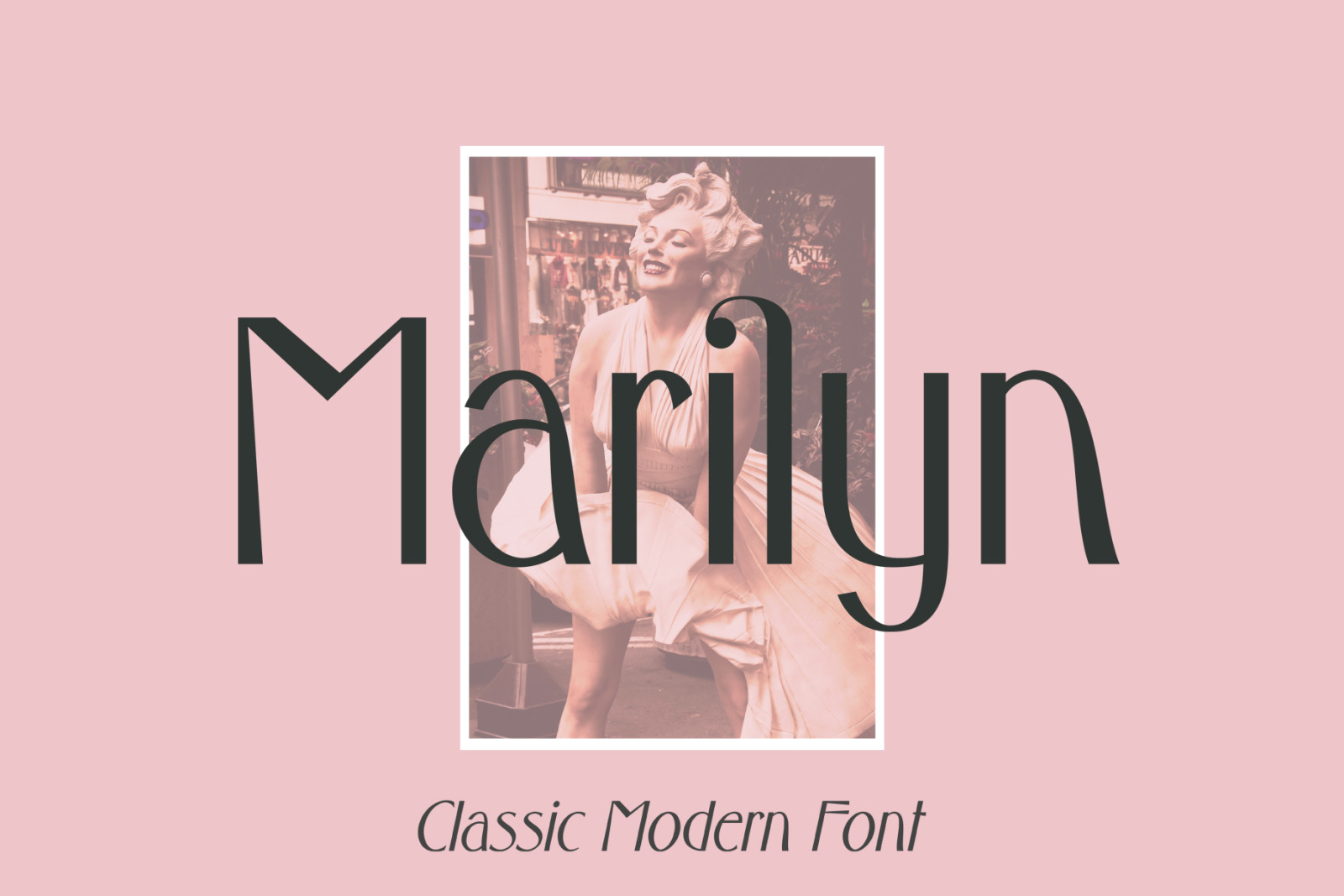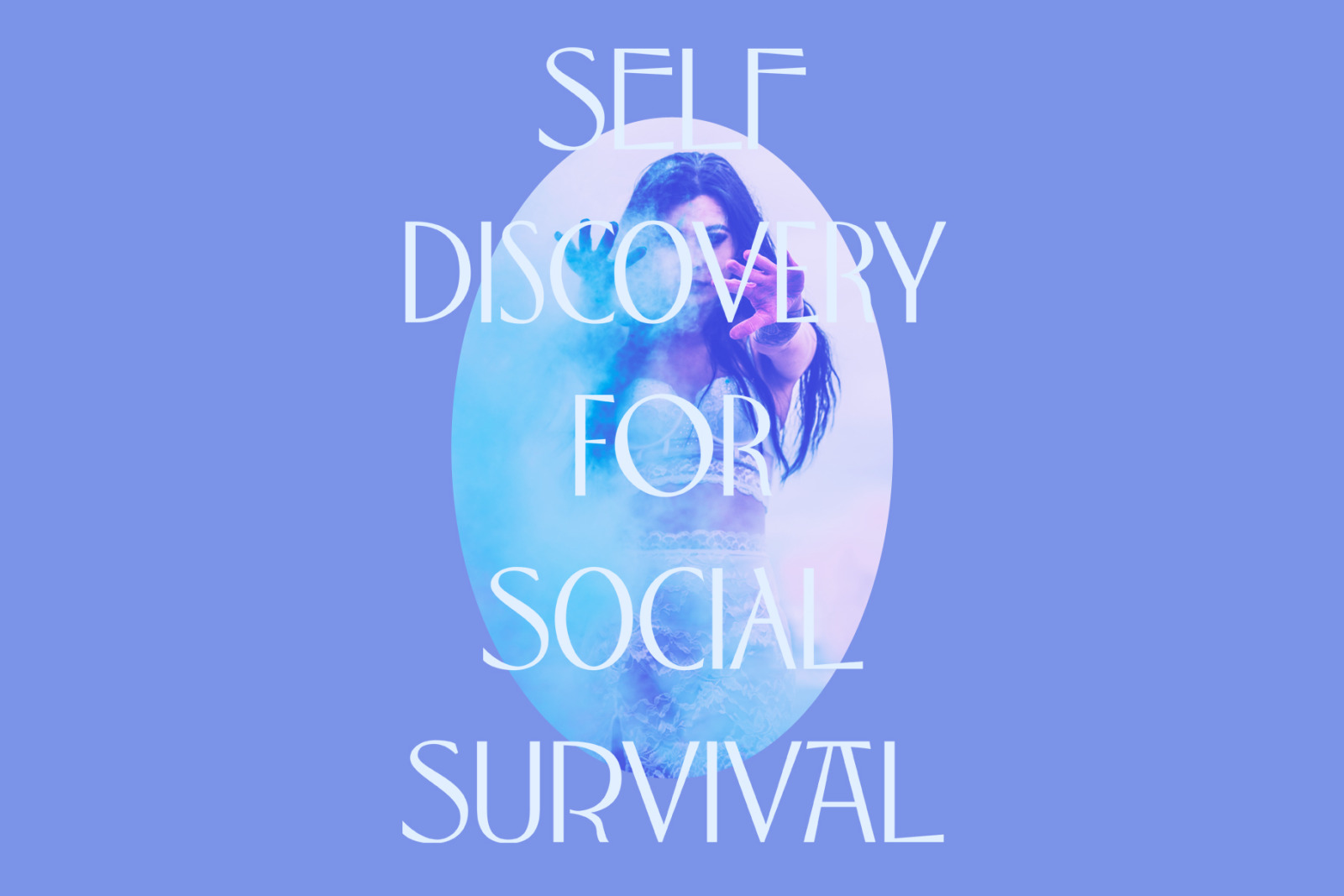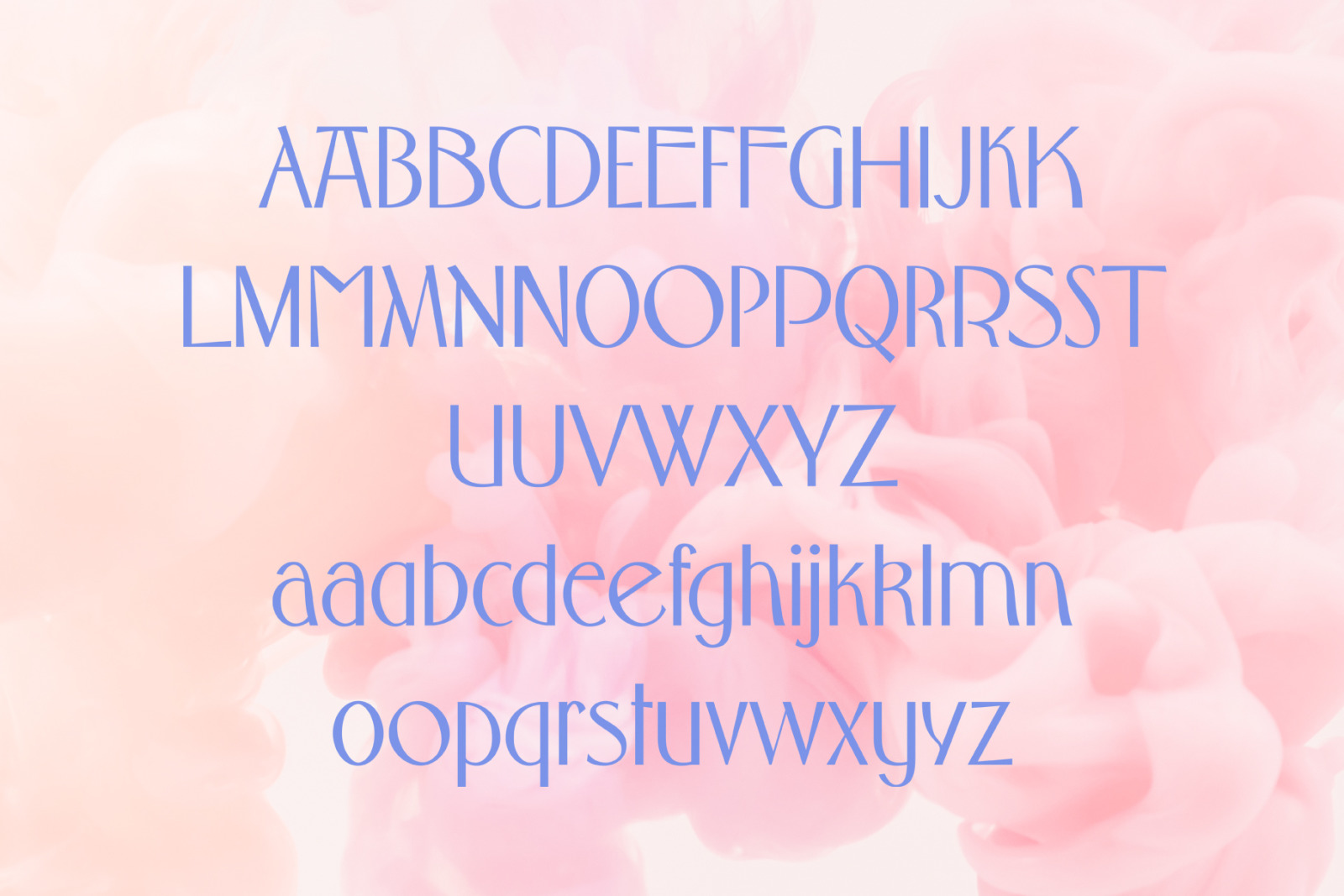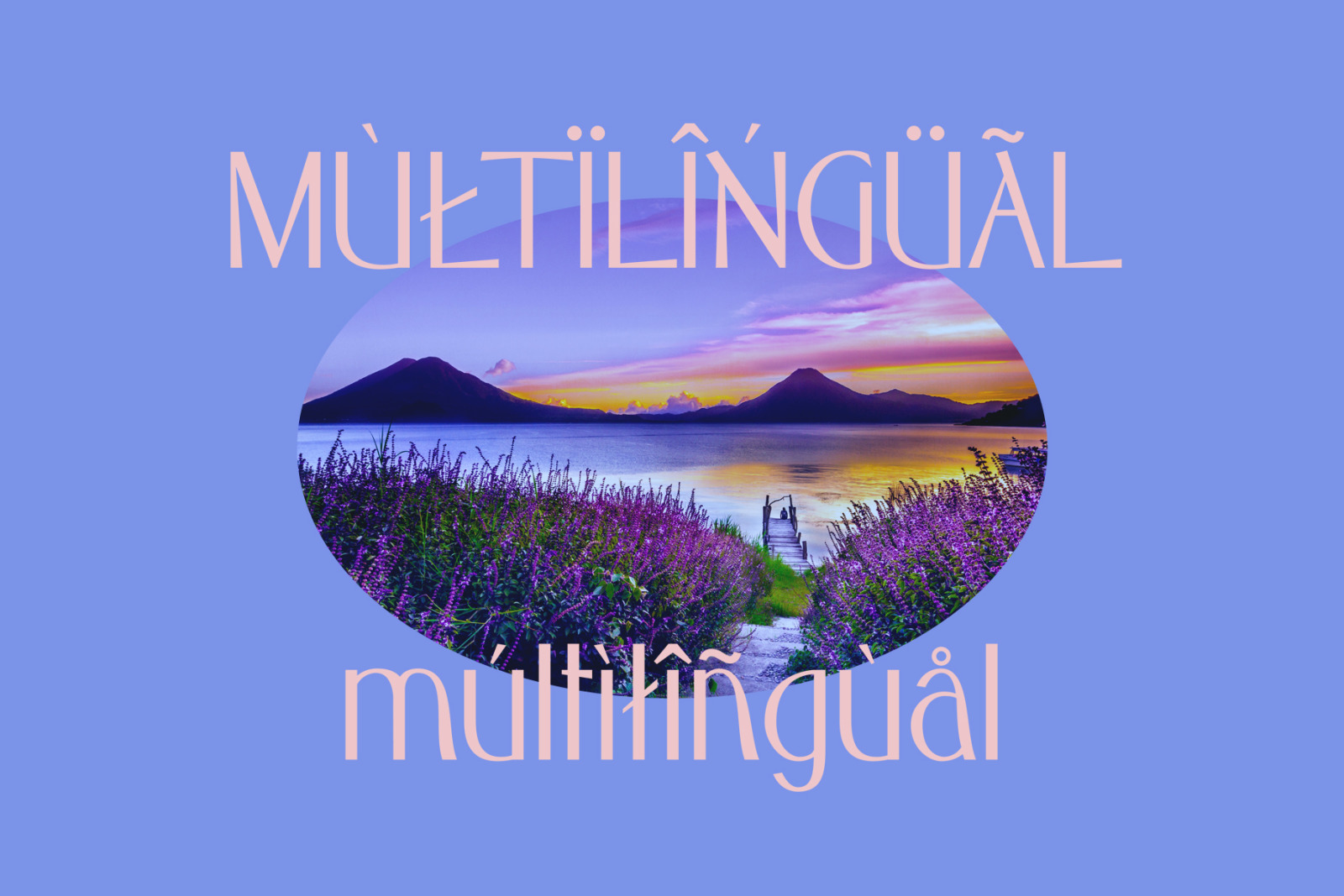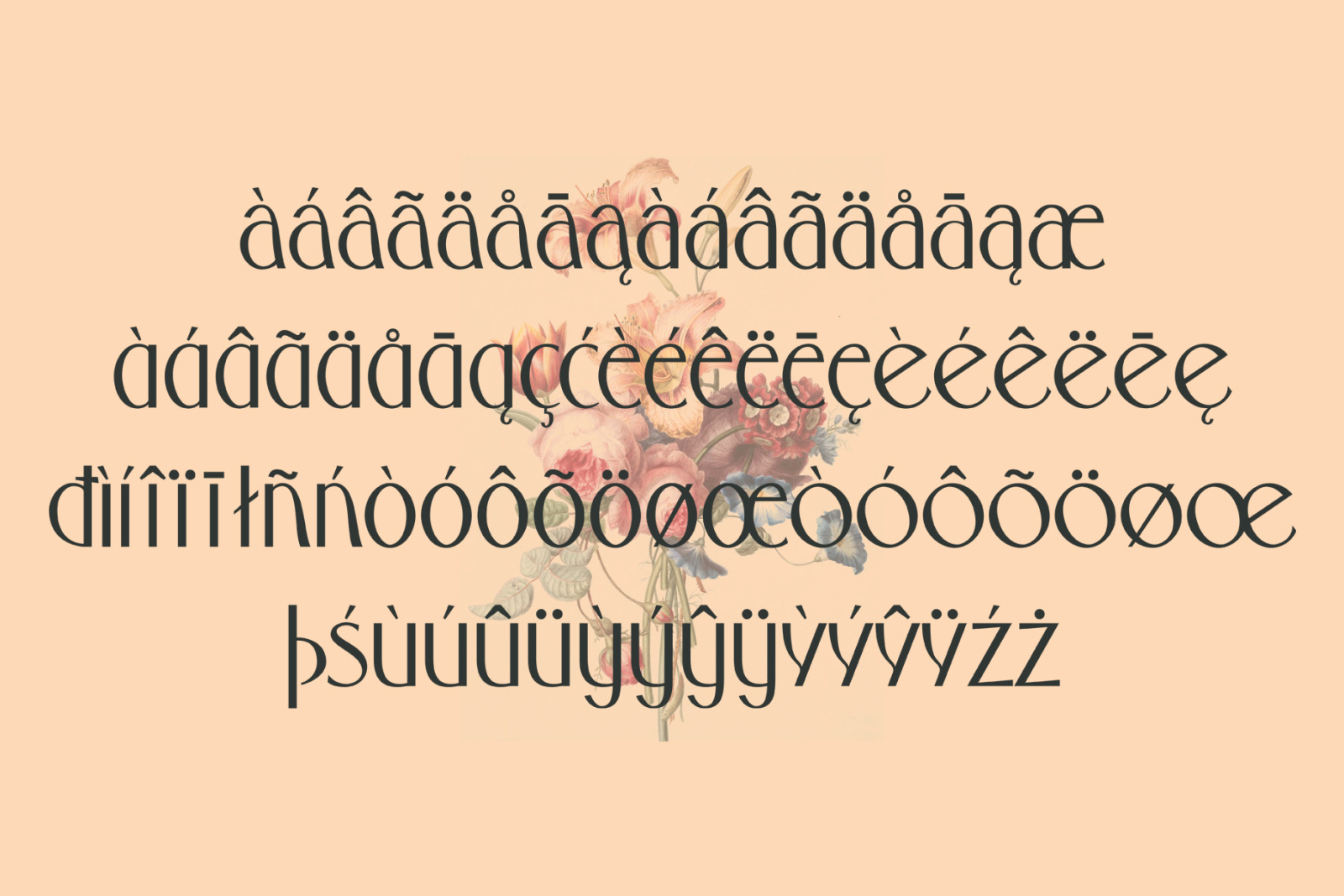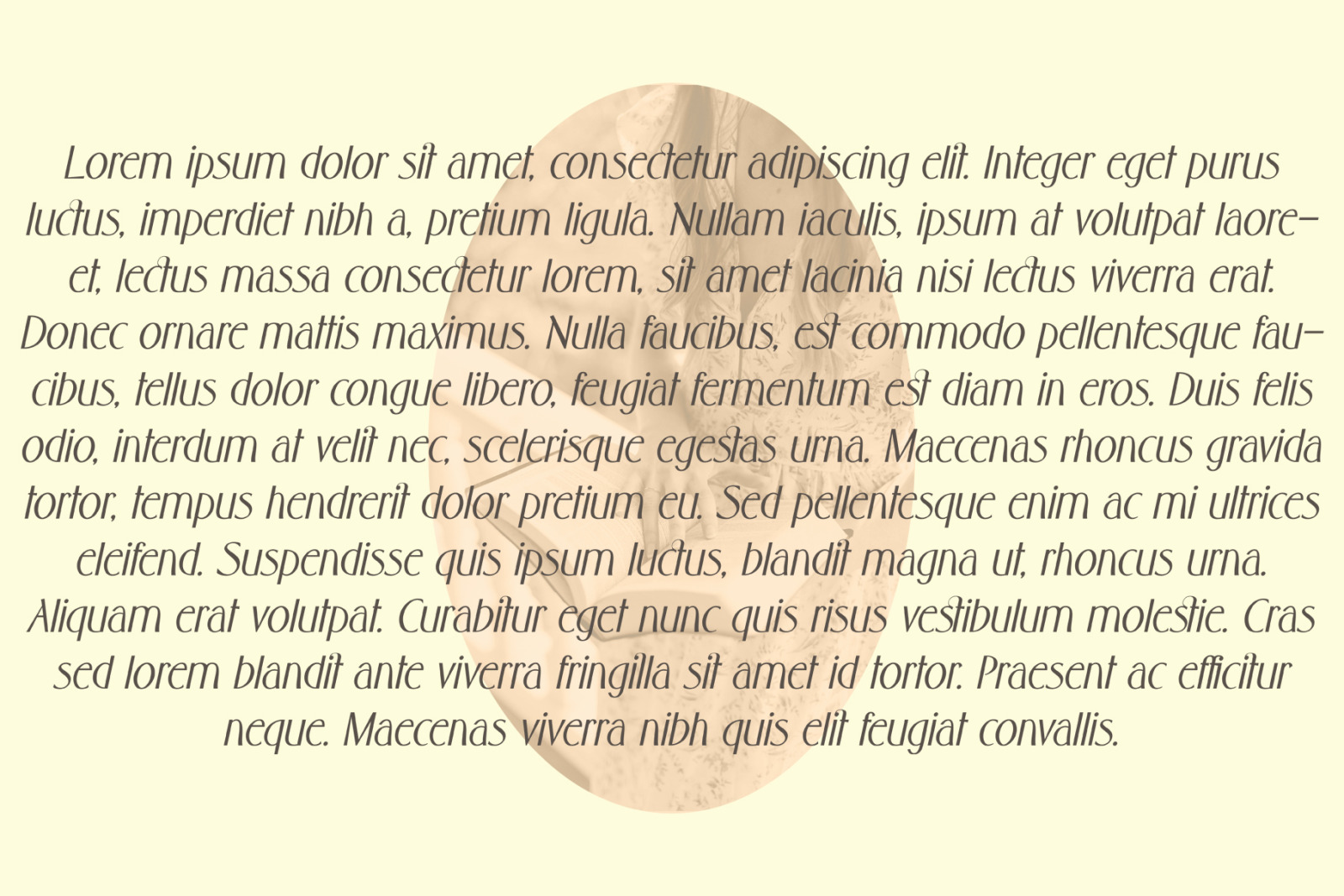
Marilyn Font
Marilyn is an elegant sans serif font inspired by retro Florentine Typeface. Marilyn is a blend of modern elegance, out-of-the-box shapes and a 60s psychedelic touch. Marilyn is great for classy designs, logos, labels, brandings, socials and more. Enjoy!